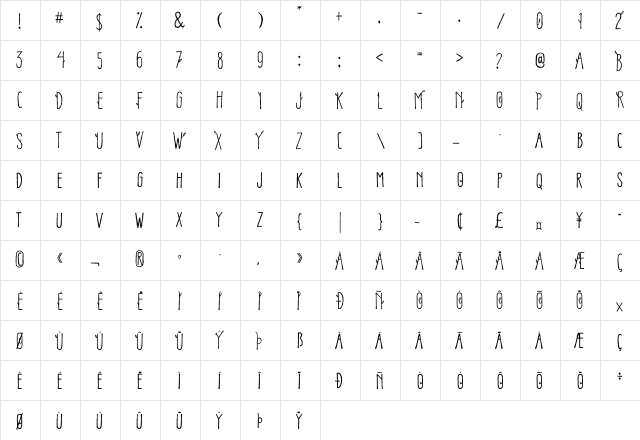
Stickman Rough Fancy Regular
Design Context for Stickman Rough Fancy Typeface
Stickman Rough Fancy embraces imperfection — its rough, textured character adds raw authenticity to designs that want to feel lived-in and unconventional.
Suited to punk-influenced zines, underground music branding, streetwear, and raw, anti-corporate design.